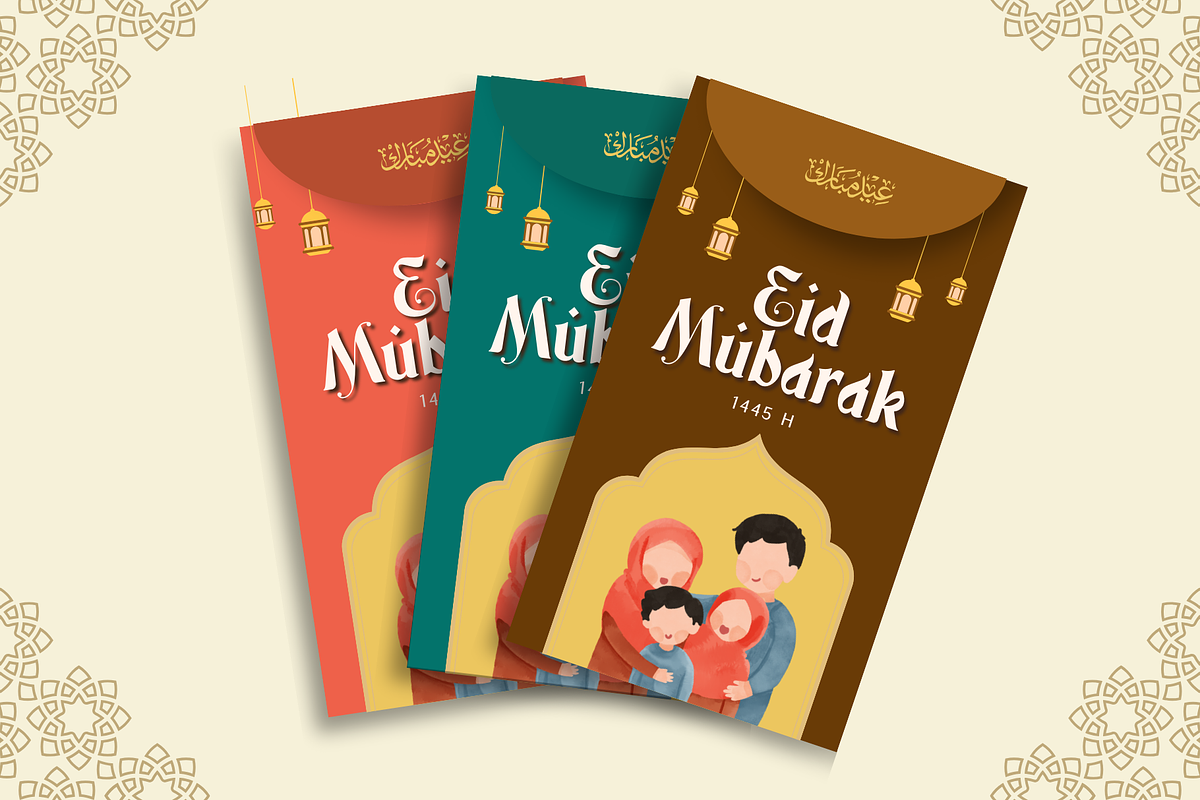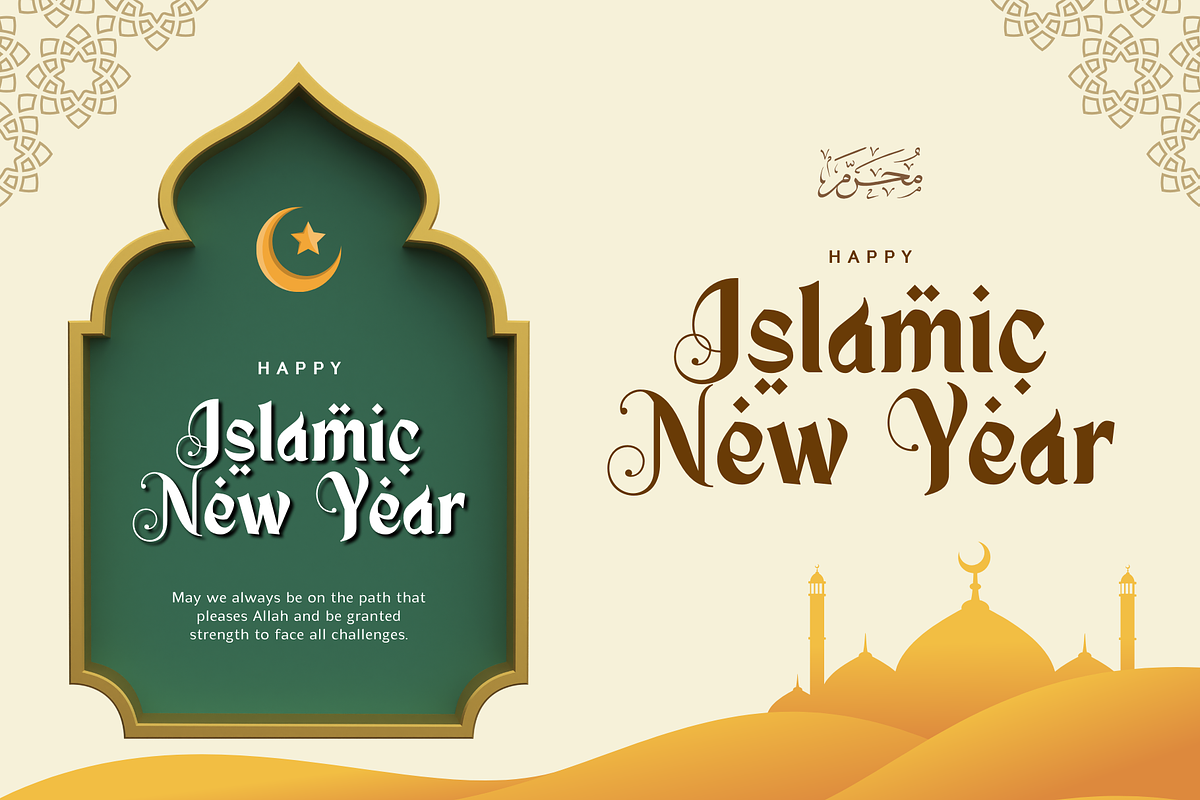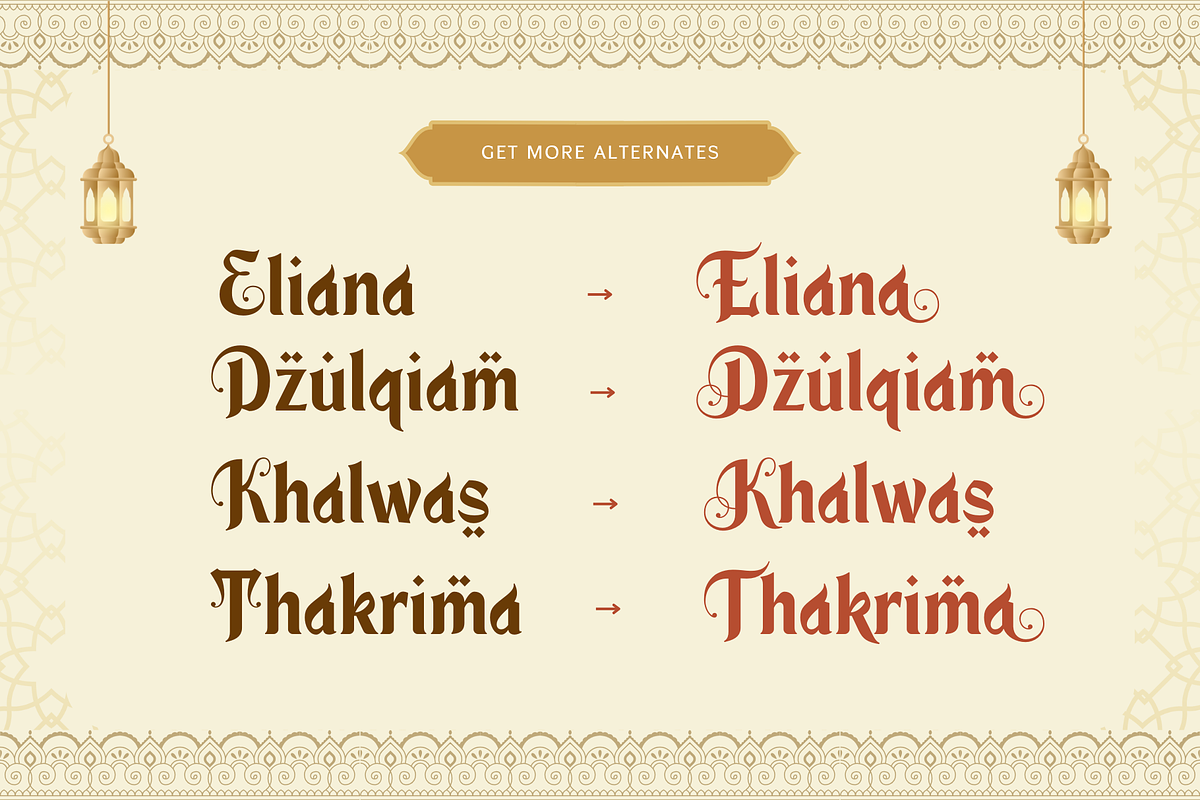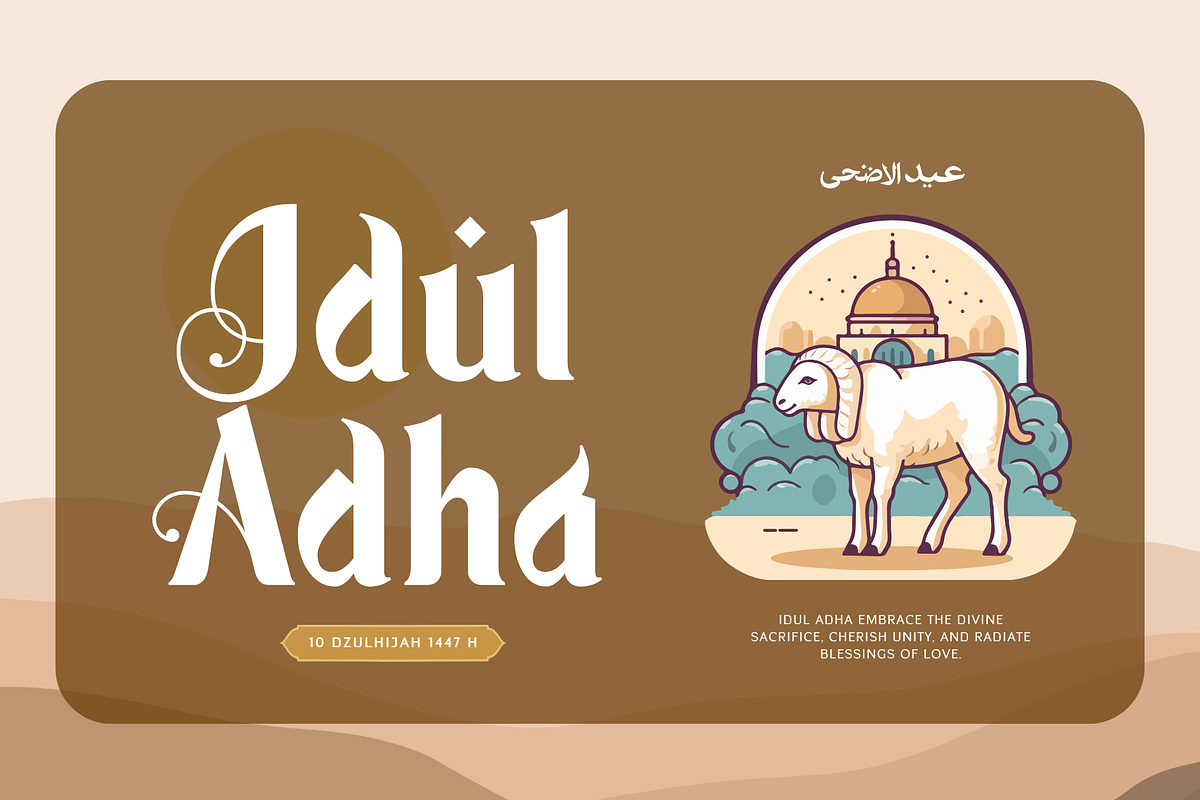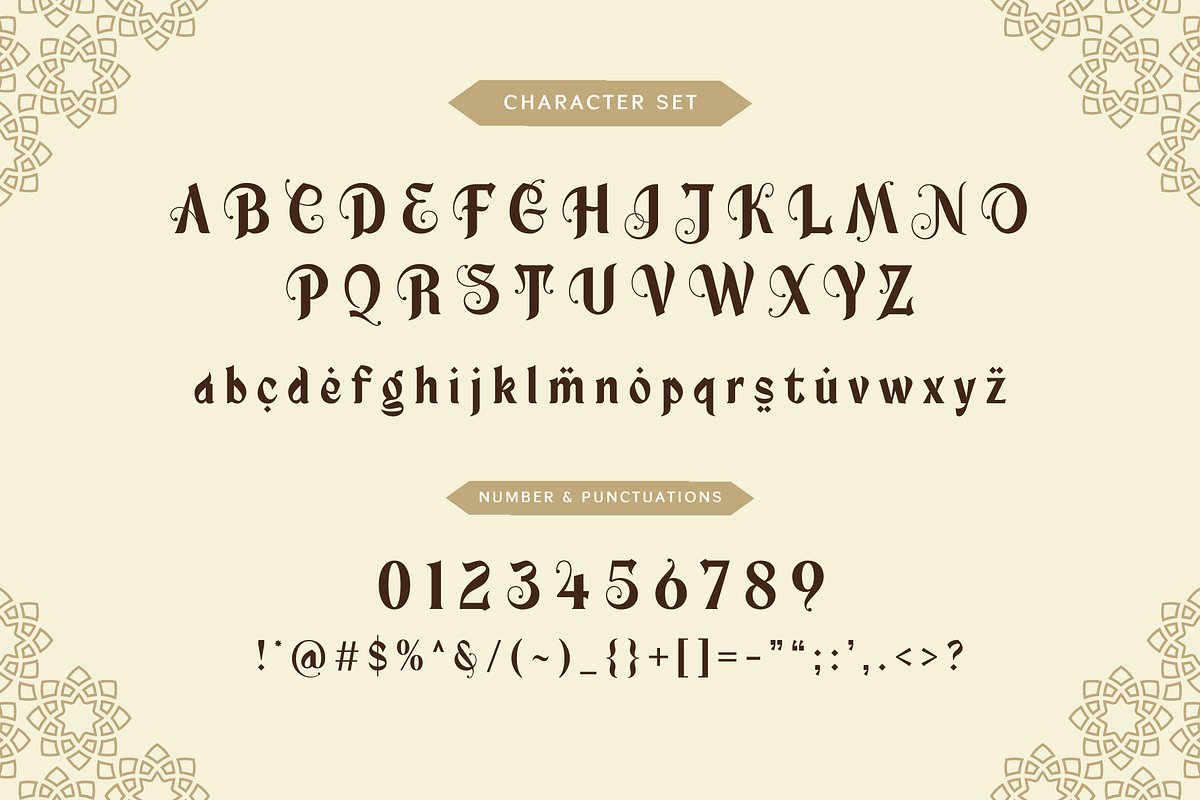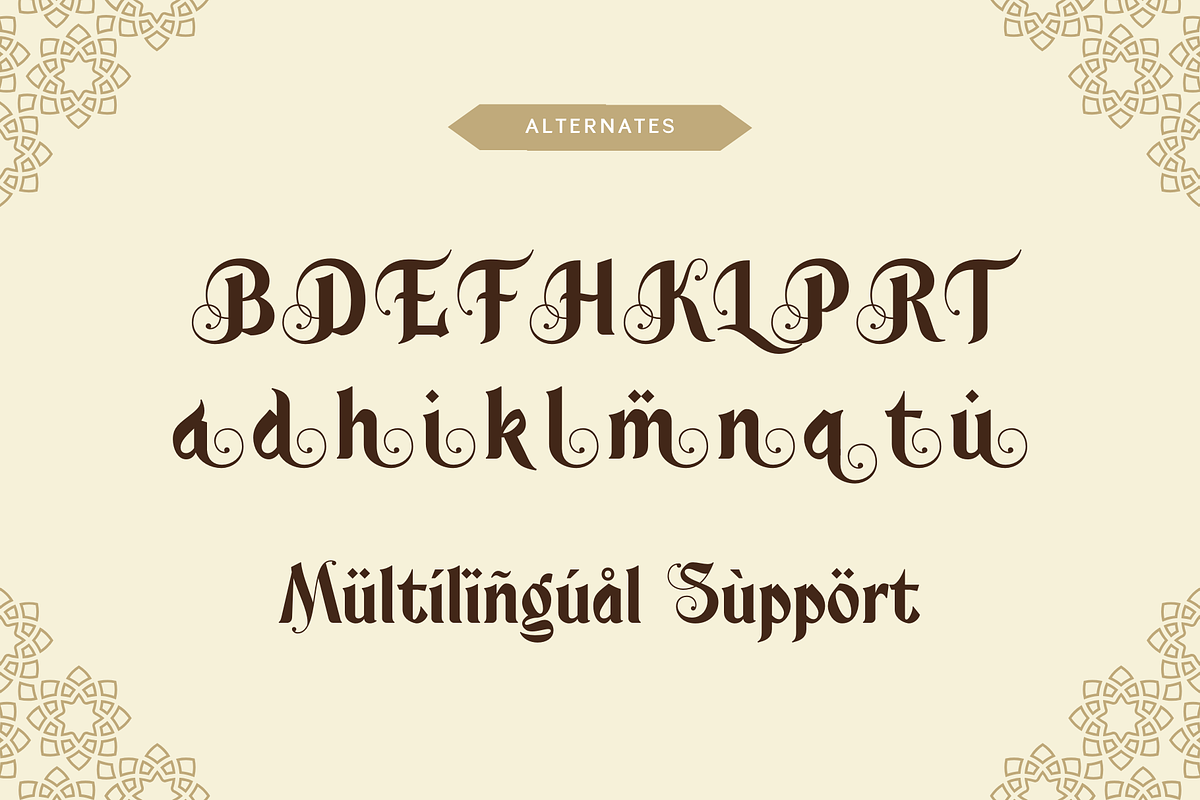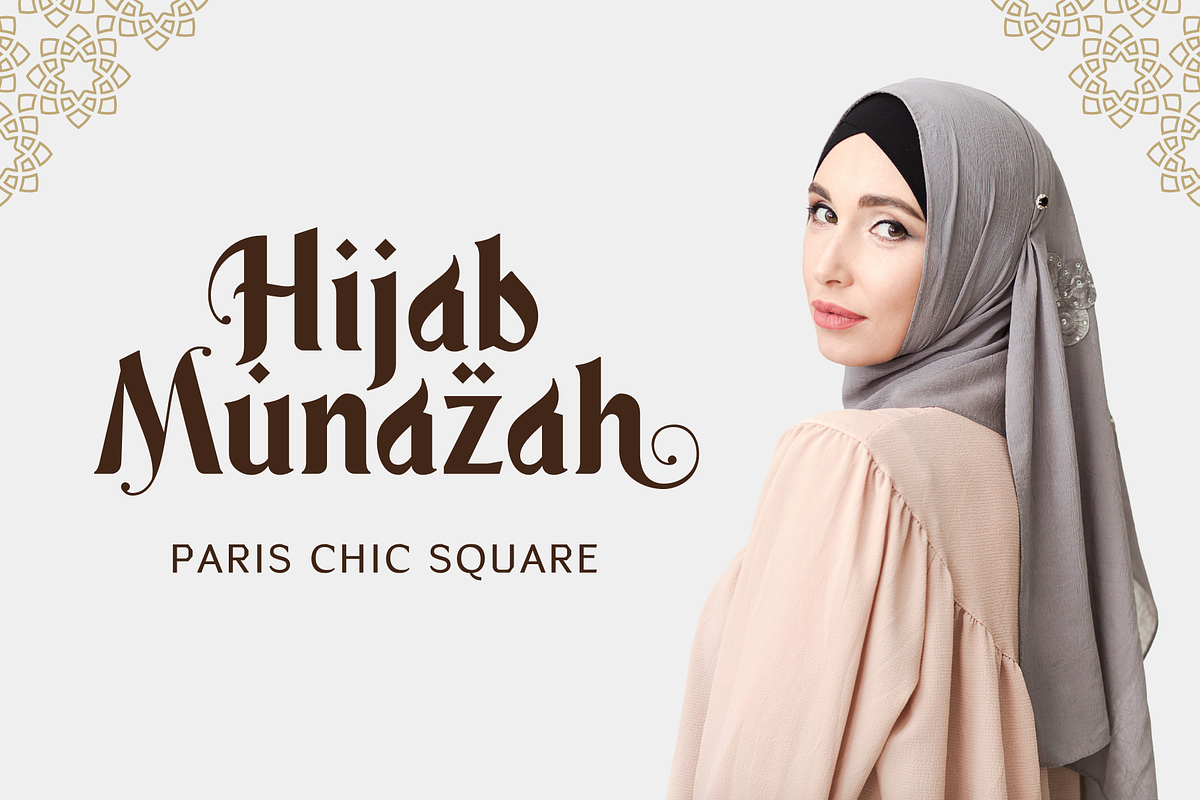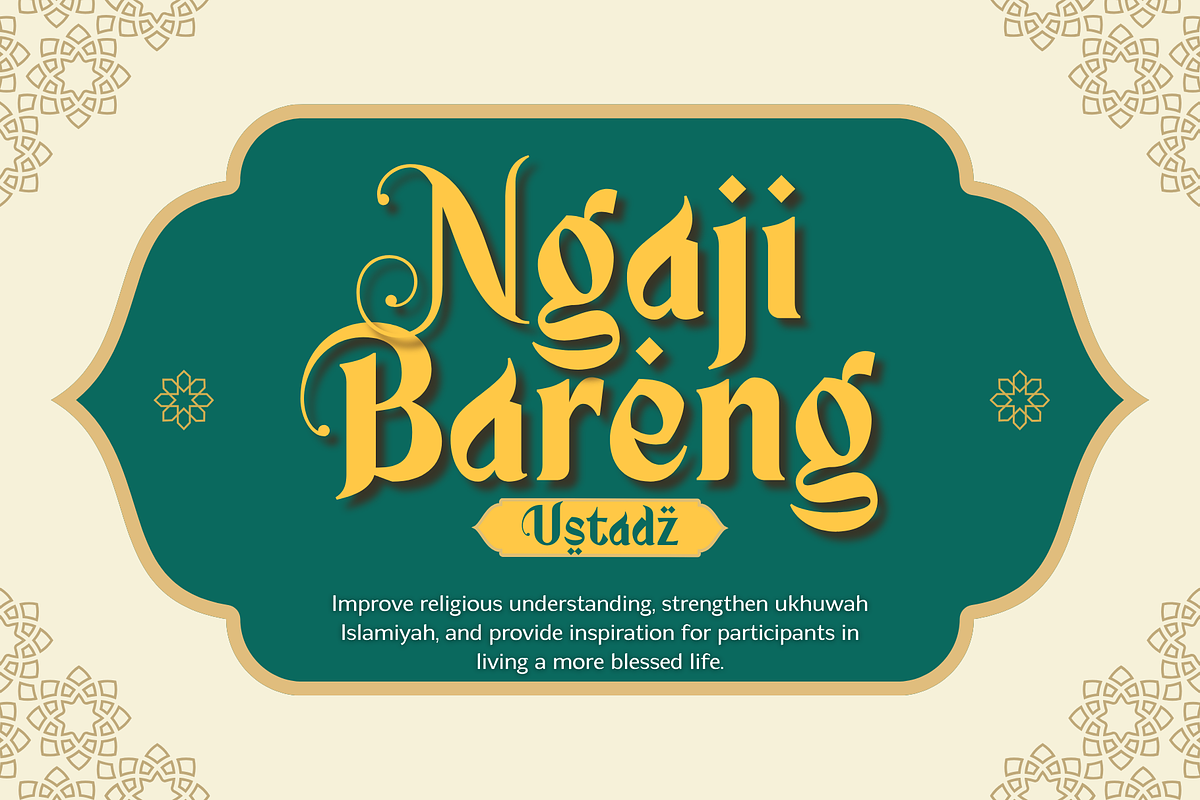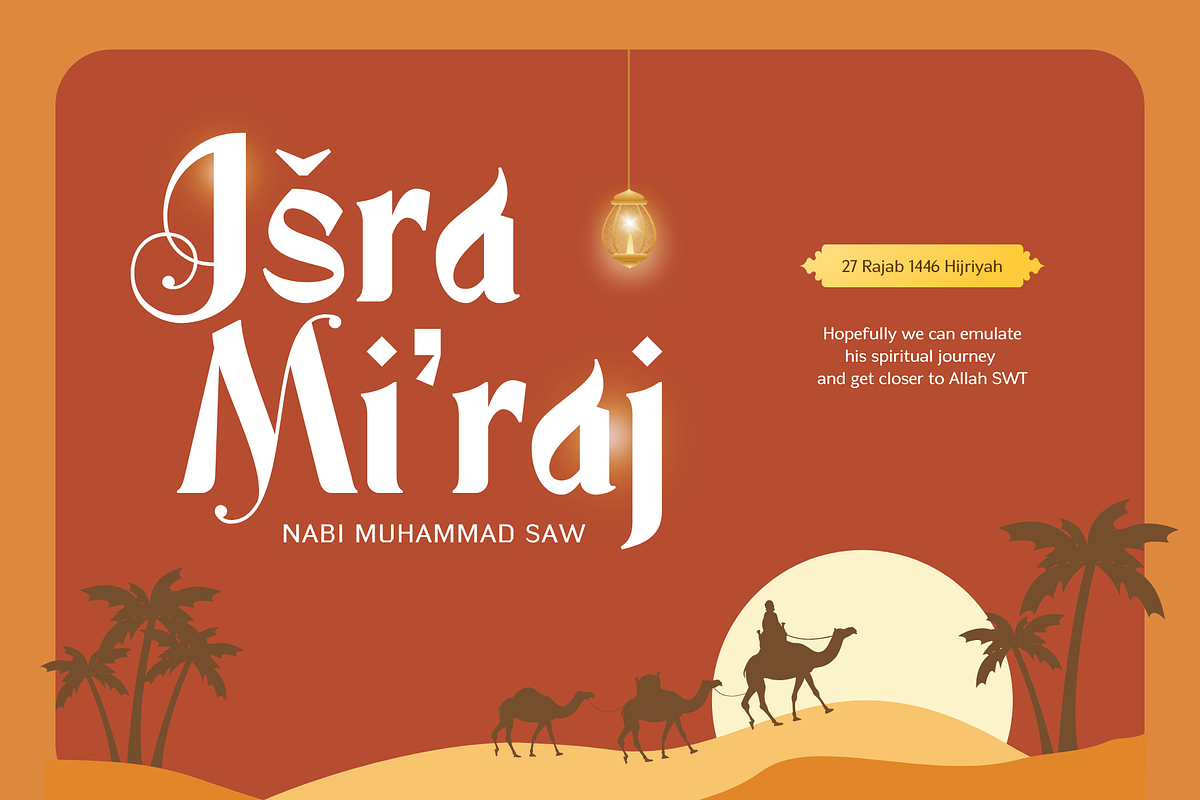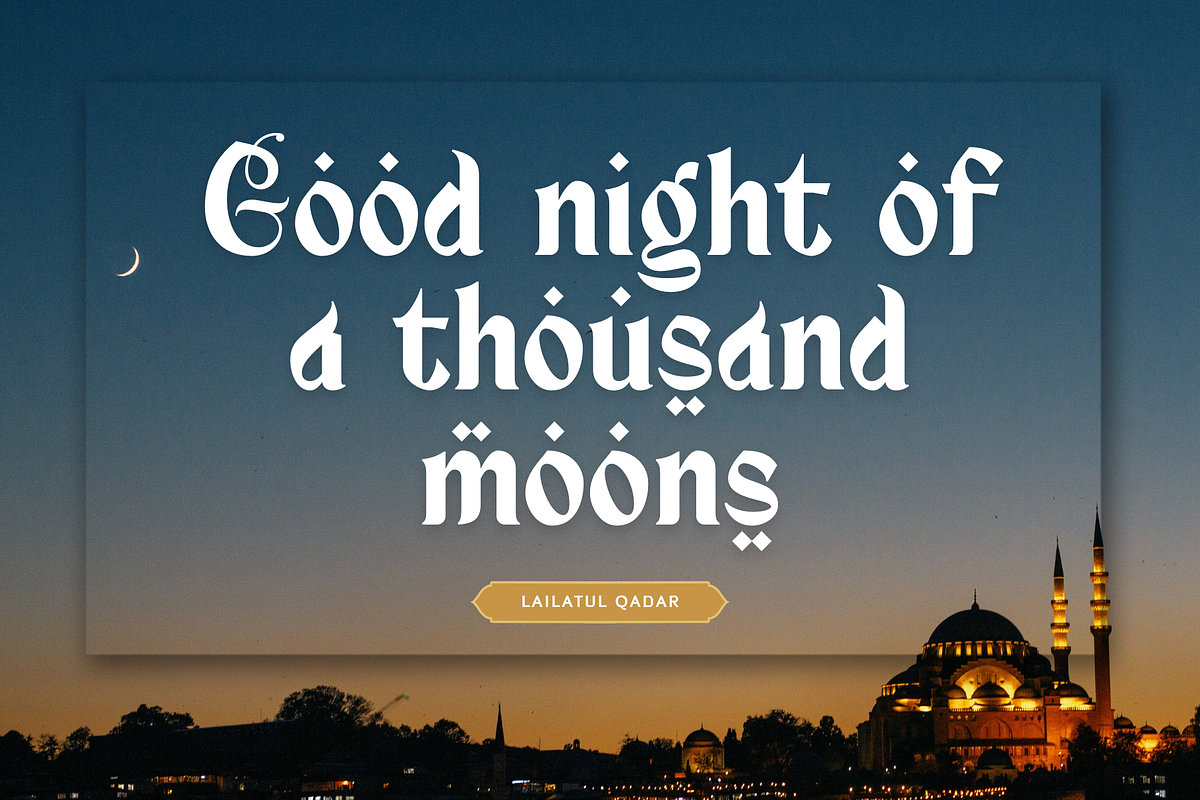
Kultum Ramadhan - Arabic Fauxlang
Kultum Ramadhan is a unique Arabic Fauxlang font that blends traditional Middle Eastern aesthetics with a modern artistic touch. Designed to capture the elegance of Arabic-style typography, this font is perfect for Ramadan-themed designs, Islamic events, branding, posters, packaging, and more. With its intricate letterforms and decorative appeal, Kultum Ramadhan adds a cultural and mystical charm to any project.
- Alternate letters for added versatility
- Numerals & punctuation